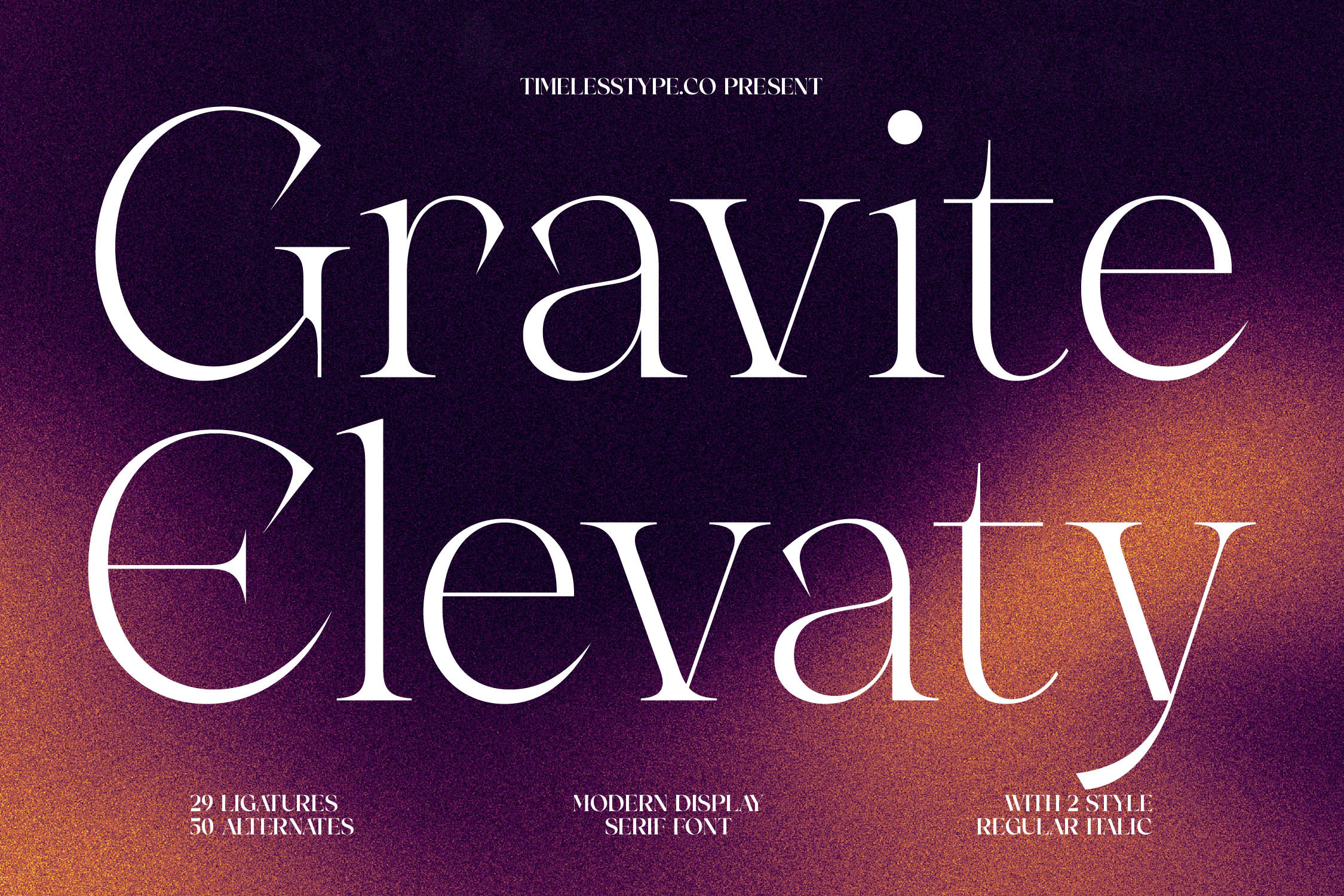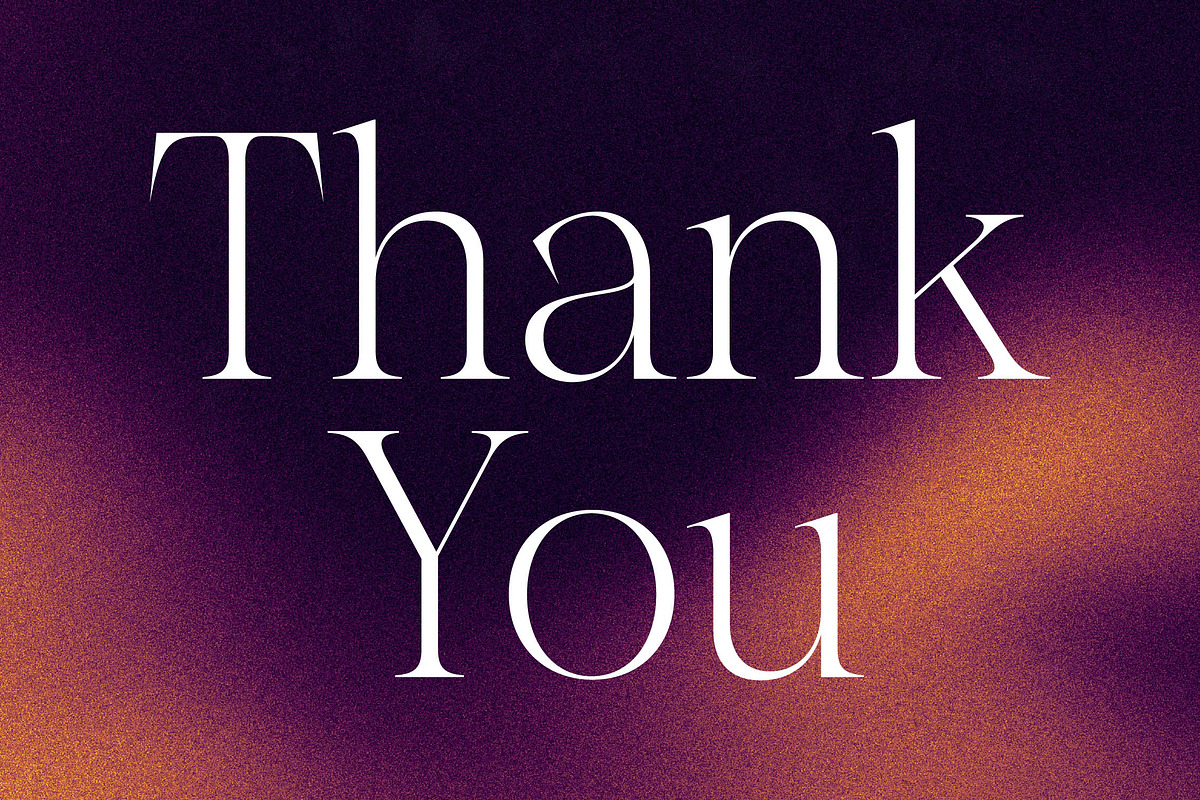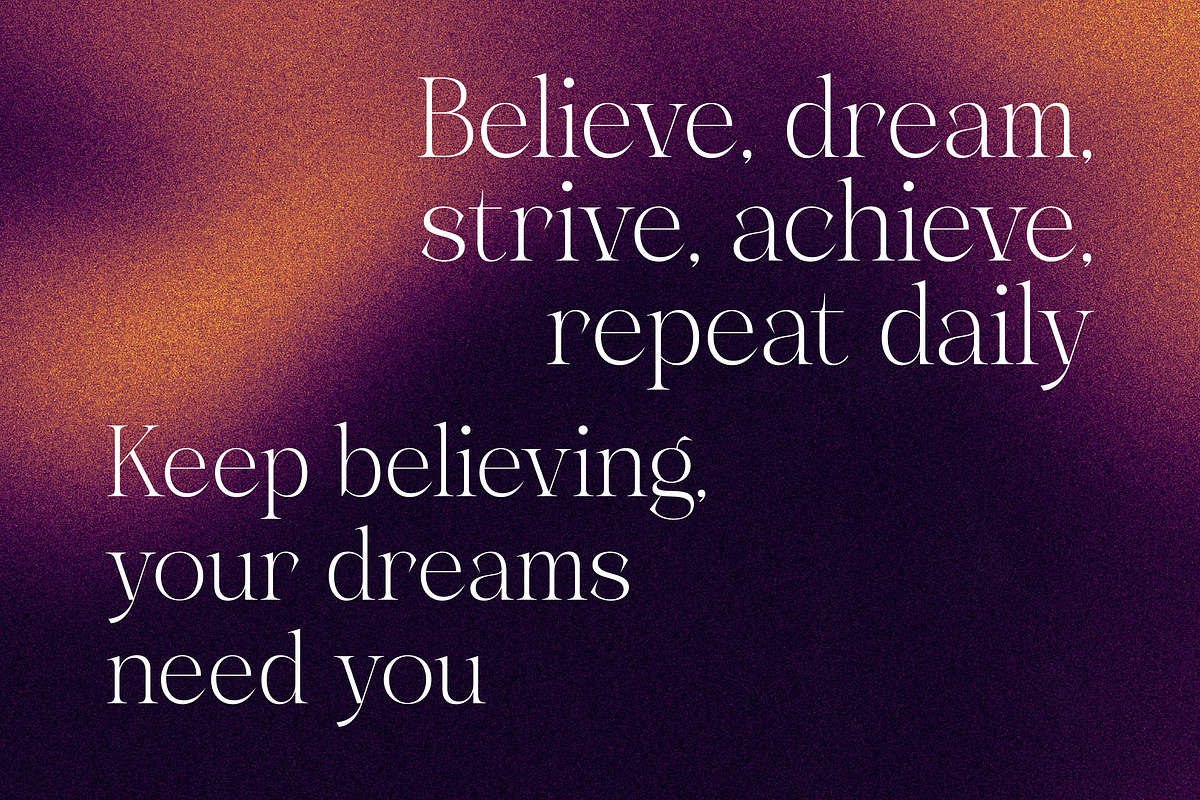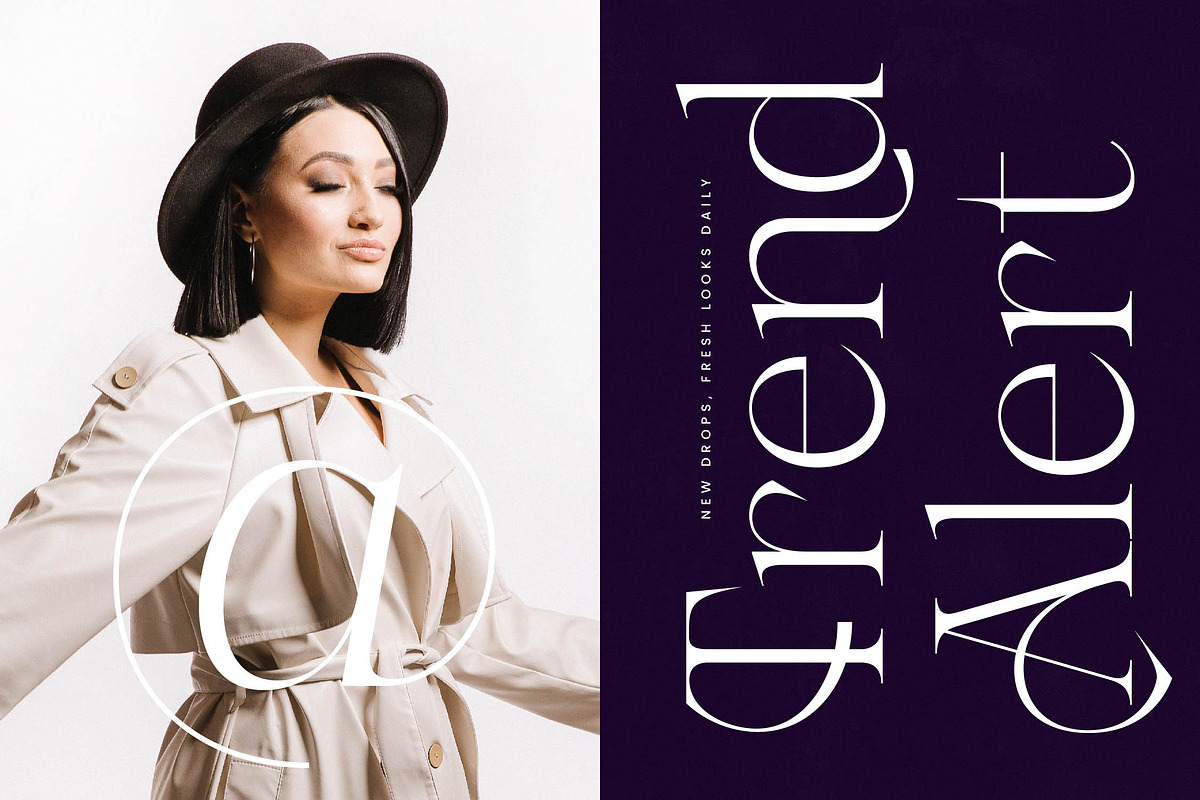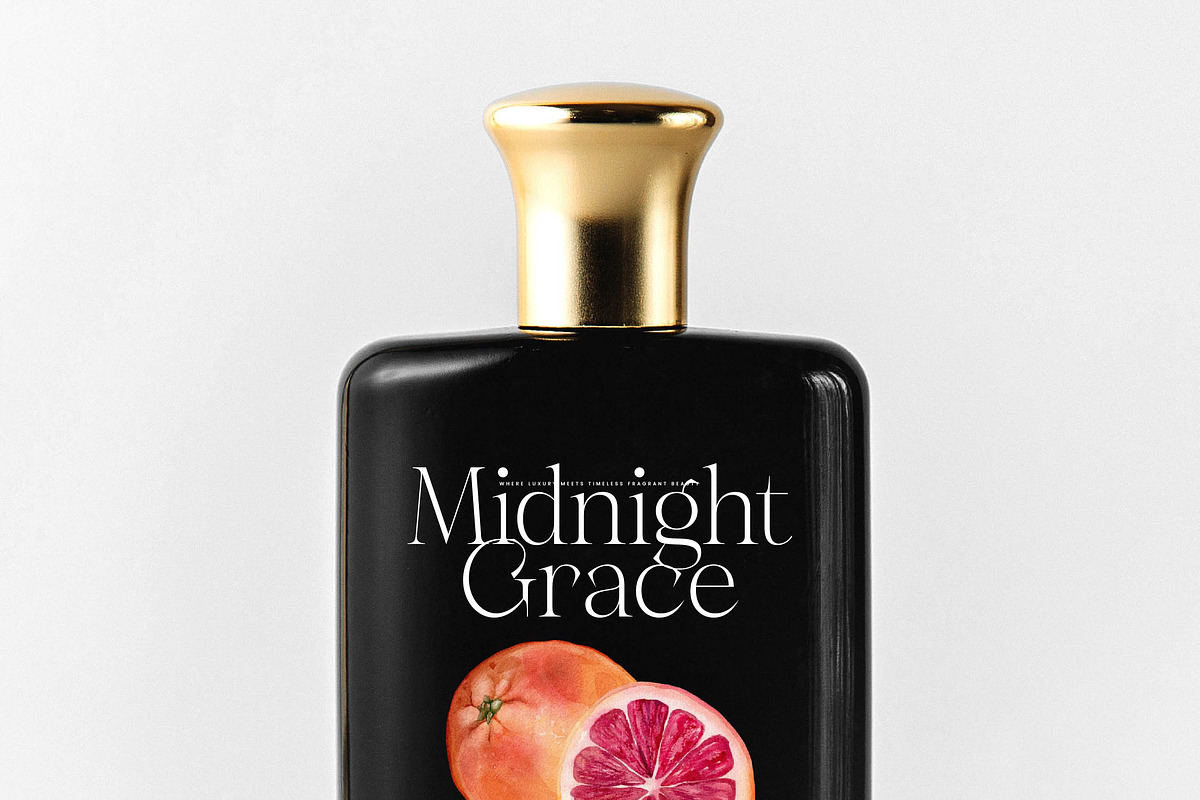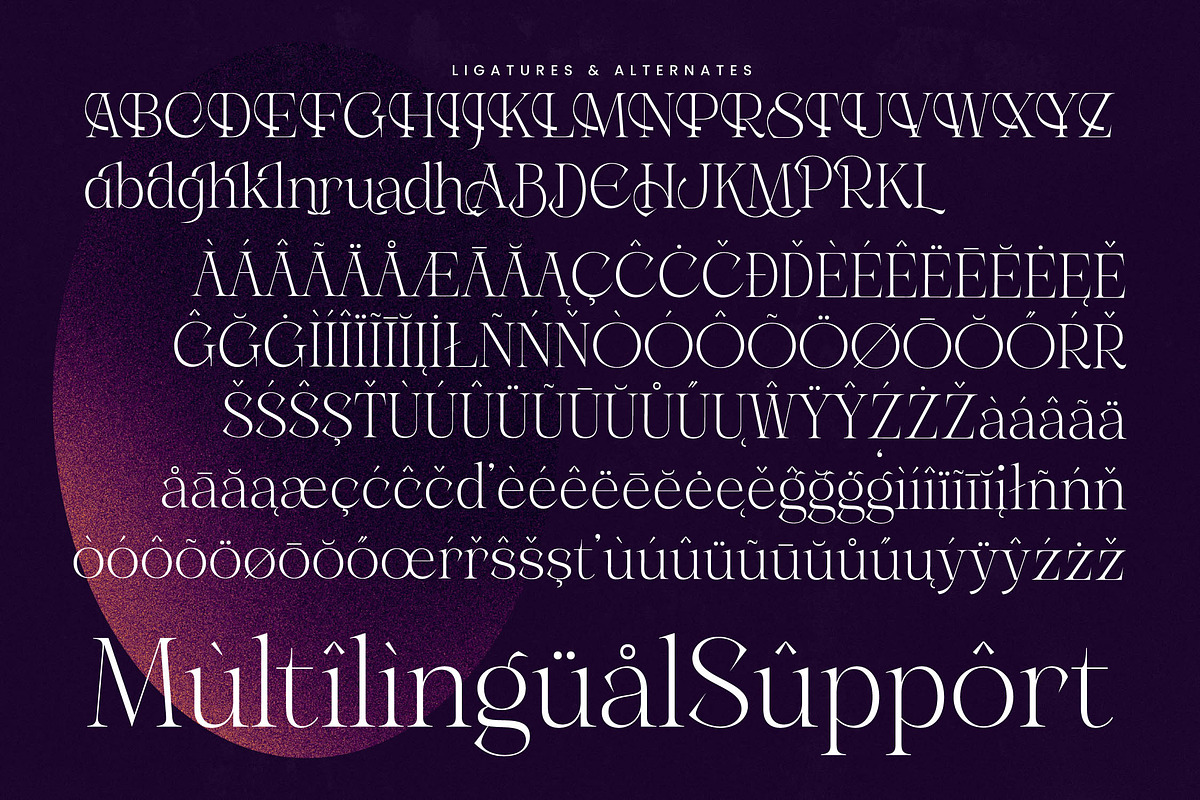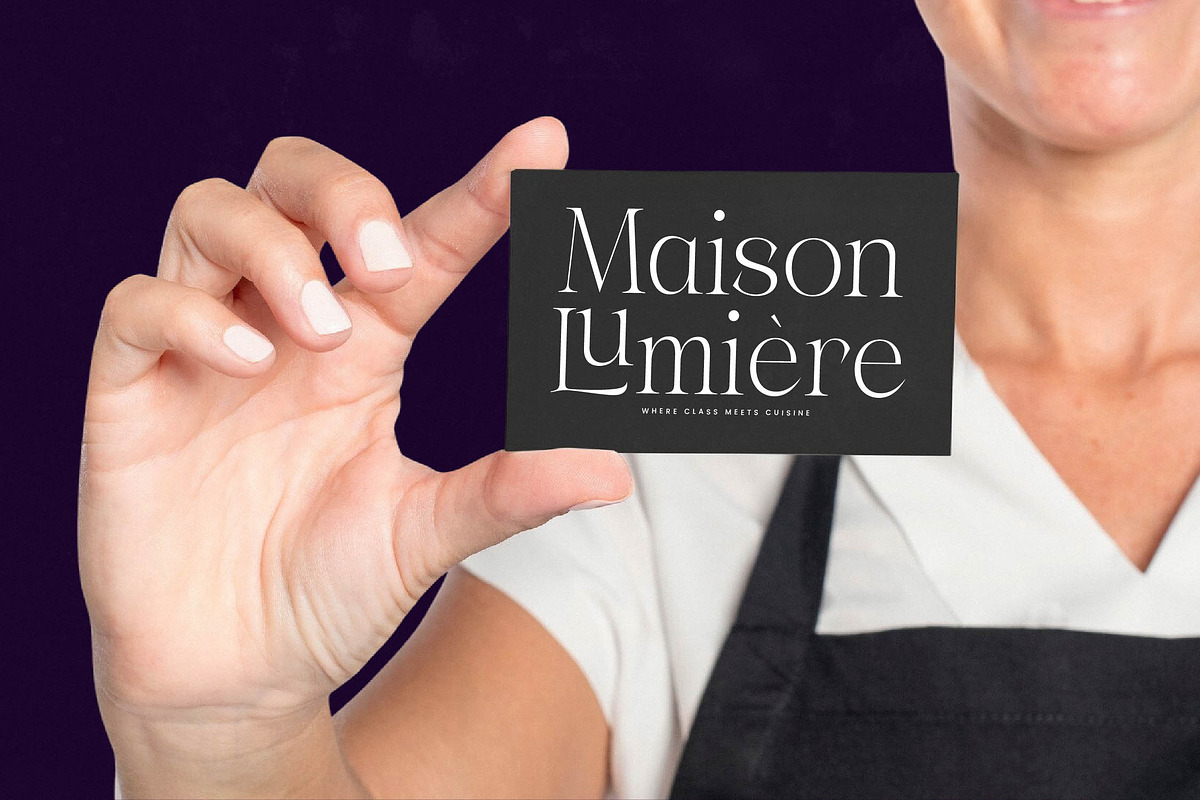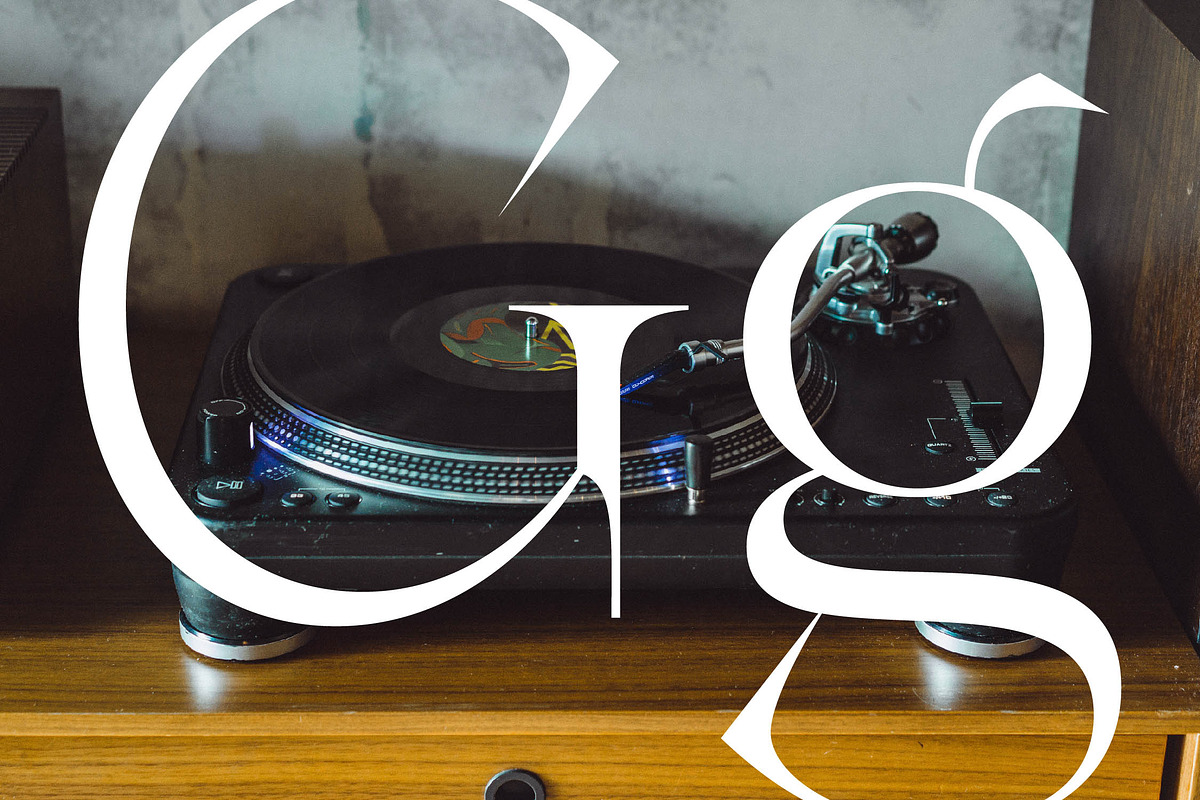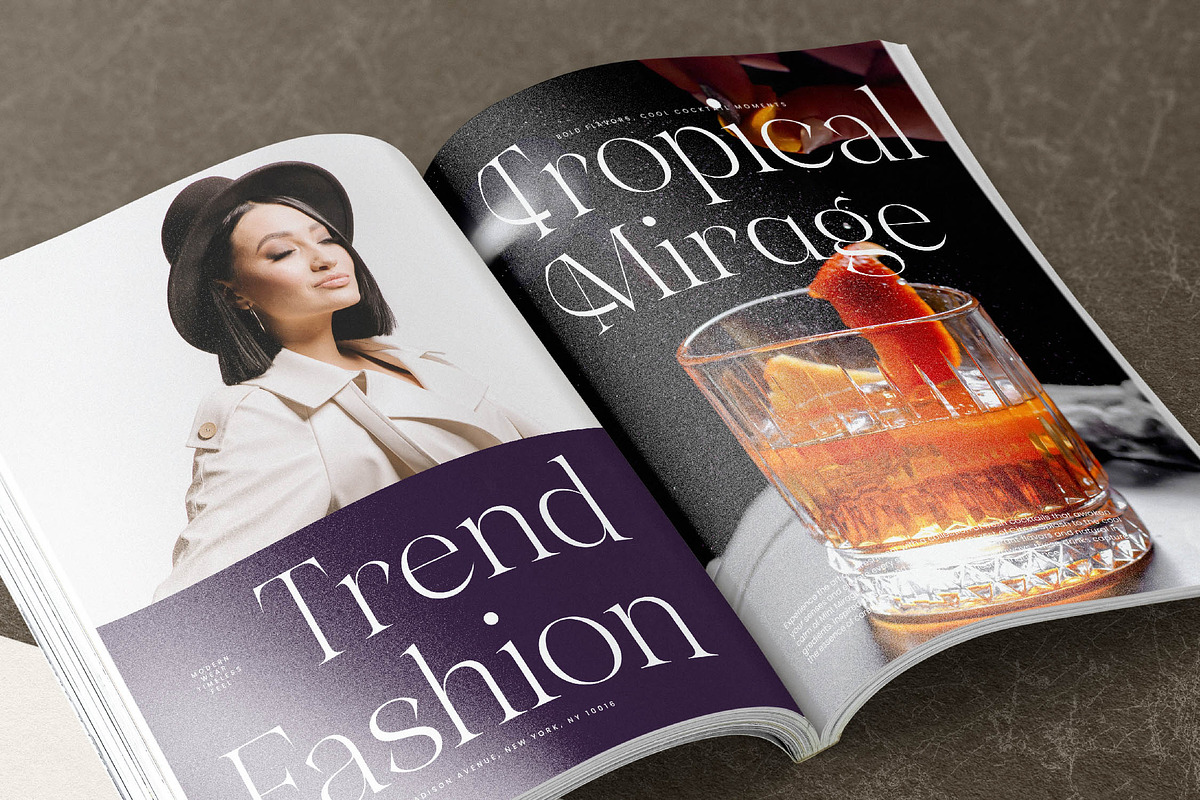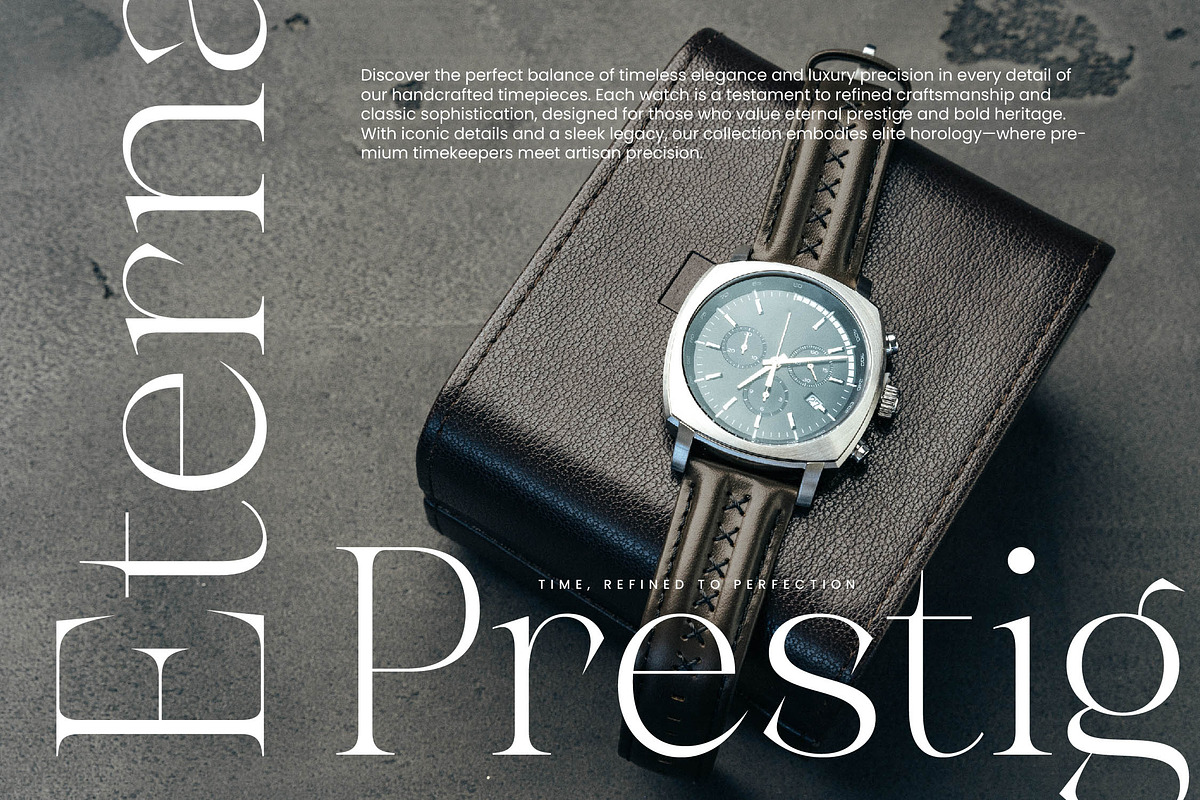
Gravite Elevaty Luxury Serif Font
Elevate your creative vision to new heights with the ethereal beauty of Gravite Elevaty, a typeface designed to transcend the ordinary. This font captures the essence of modern sophistication, blending sharp precision with fluid grace for a truly captivating visual experience.
Inspired by the celestial dance of light and shadow, this collection draws its soul from the movement of the cosmos and the gravity of high-end fashion. The design reflects a cosmic elegance, where every stroke feels like a deliberate movement through space, meant to pull the viewer into a world of refined mystery and timeless allure.
As a modern serif display, this typeface commands attention through its striking high-contrast strokes and razor-sharp terminals. It is the definition of luxury typography, offering a high-contrast serif profile that feels both cutting-edge and classically beautiful. For designers seeking an editorial font with maximum branding impact, this provides the perfect balance of readability and artistic flair.
Perfectly aligned with the current modern serif trend, this typeface meets the demands of contemporary aesthetics where boldness meets elegance. It stands at the forefront of editorial display fonts, providing the unique flair needed for character-driven typography that breaks away from generic styles. Its ability to feel both vintage and futuristic makes it a versatile tool for today's most influential design movements.
This font is an exceptional choice for high-stakes logo design and comprehensive branding projects that require a signature look. Its sophisticated nature makes it ideal for editorial layouts in high-fashion magazines and luxury packaging for artisanal products. From bespoke wedding invitations to the most prestigious fashion brand identities, it delivers a sense of curated excellence to every application.
The package includes a rich set of 29 ligatures and 50 unique alternates that allow for custom typographic flourishes. It also features a full range of multilingual support and international characters, ensuring your message reaches a global audience with ease. Each character has been meticulously crafted to provide a seamless flow and professional finish to your digital and print projects.
- Ligature 29 Alternate 50